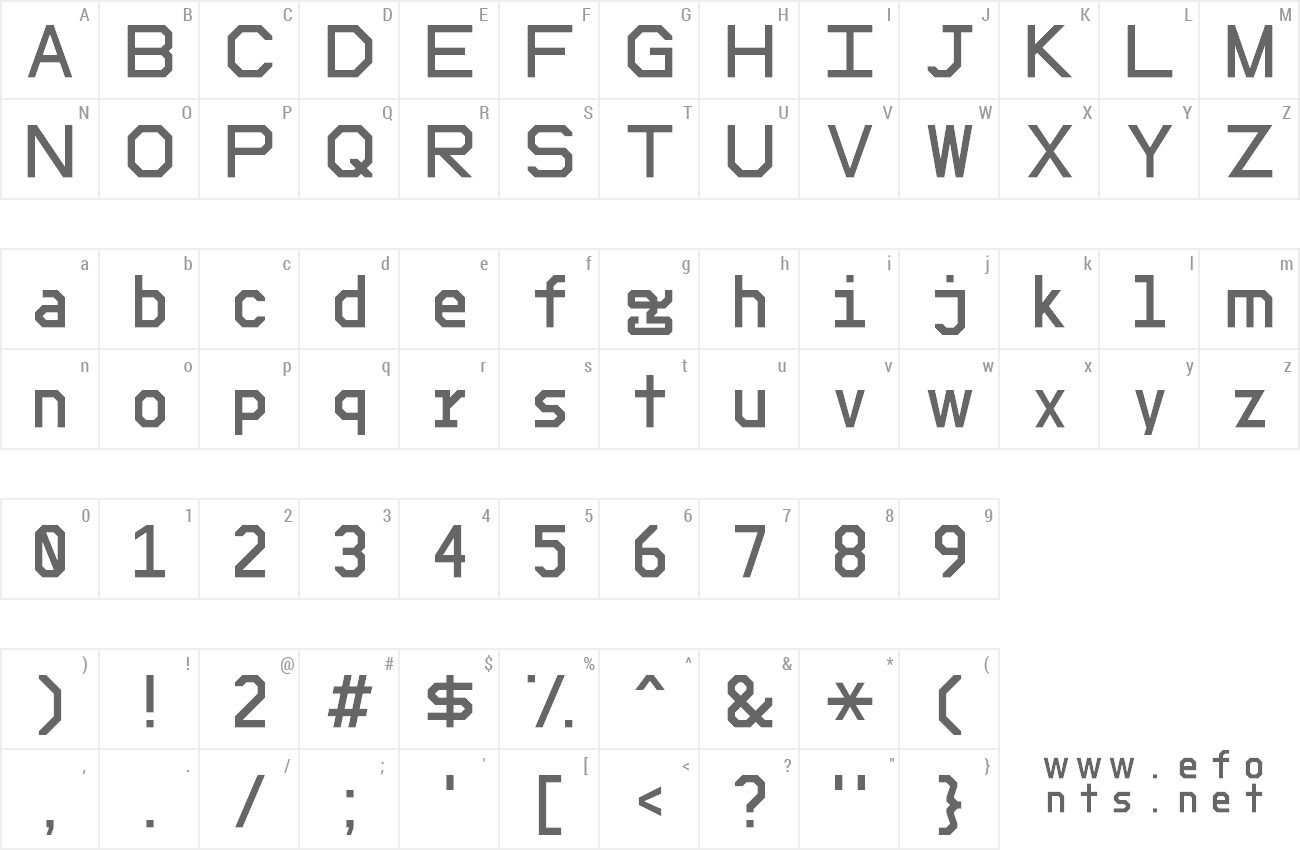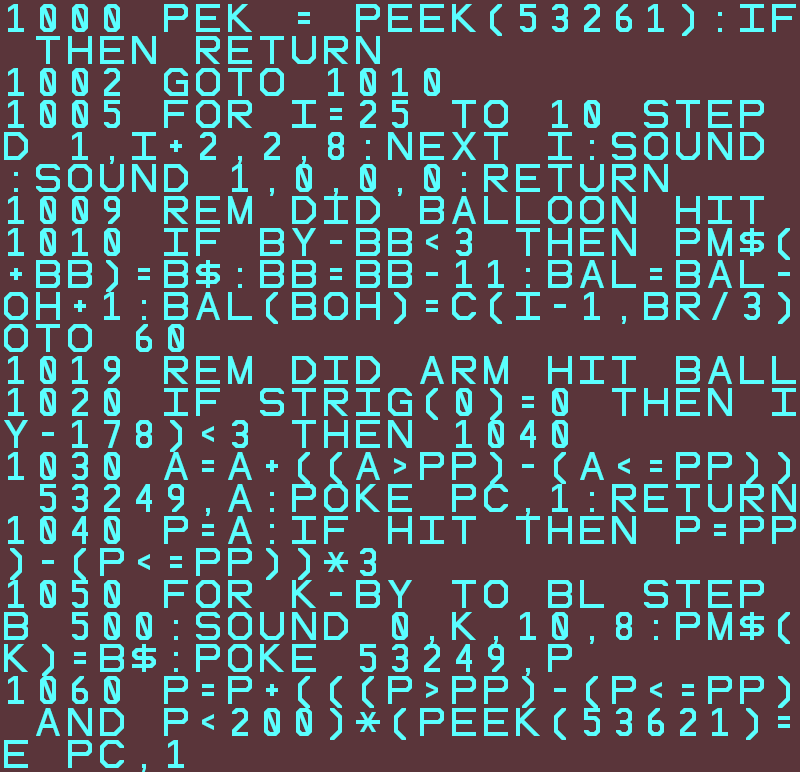
| Font name: | Retra Console |
| Categories | Basic, Fixed width |
| Author: | Bryndan Meyerholt |
| Note by Bryndan Meyerholt | |
| This is a Monospaced font that exudes the feeling of 80's home computers. This font also includes Symbols for Legacy Computing, 7-segment displays, and arbitrary fraction characters. |